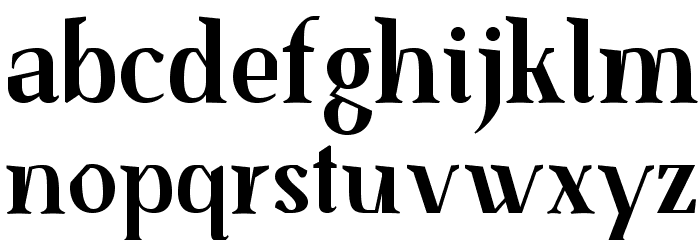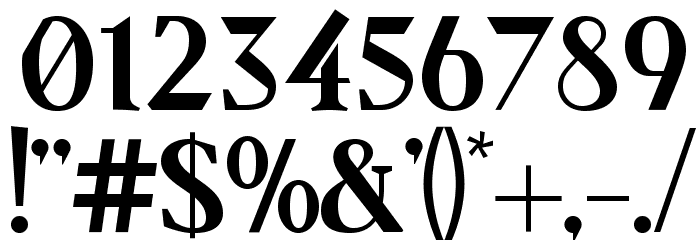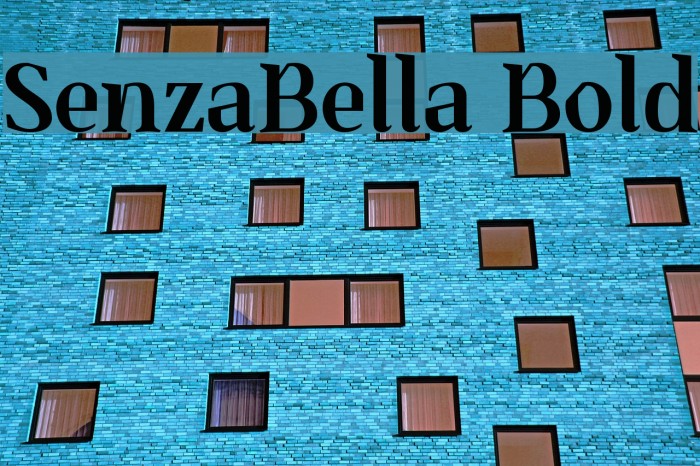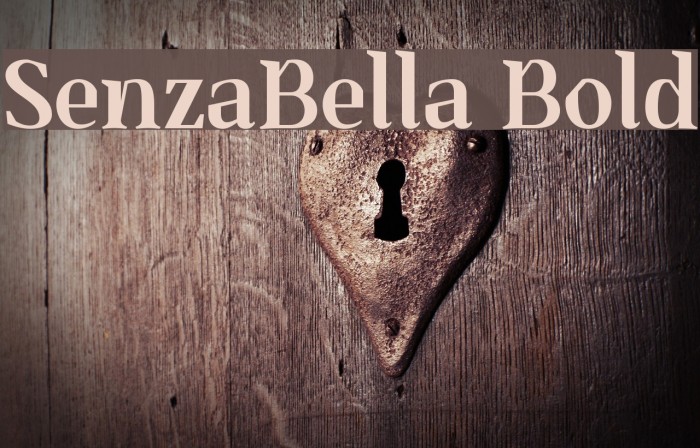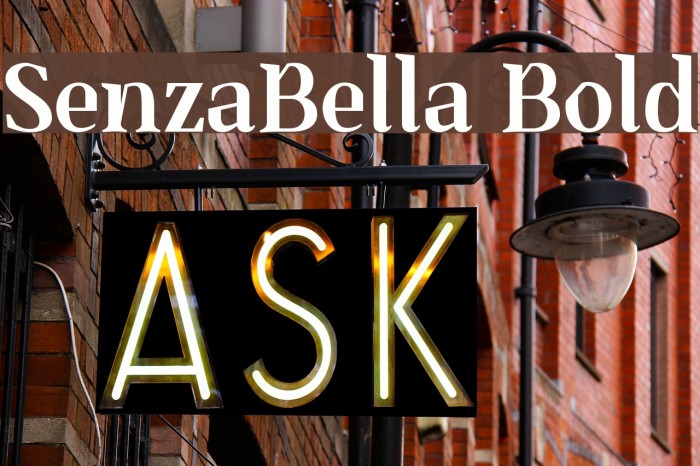
SenzaBella Bold Font
This font features a bold and striking appearance with a strong presence. The characters are well-defined with sharp serifs and a slightly condensed structure, giving it a classic yet modern feel. The uppercase letters are tall and commanding, while the lowercase letters maintain a consistent style that complements the overall design. The numerals are clear and easy to read, making them suitable for various applications. Special characters are distinct and well-integrated into the font's aesthetic, ensuring versatility in design projects.
A bold serif font with sharp serifs and a modern classic style.
- Proposed Projects: Ideal for headlines, branding, posters, and editorial design where a strong and elegant serif font is needed.
- Overall Style: Modern Classic
- Use Case: Headlines, Logos, Editorial Design